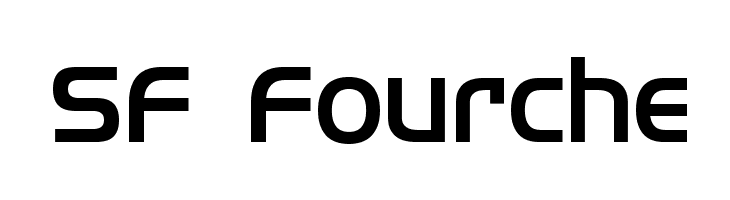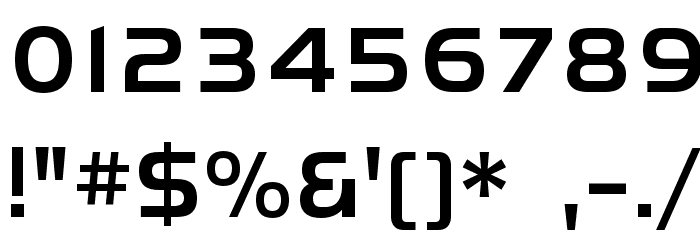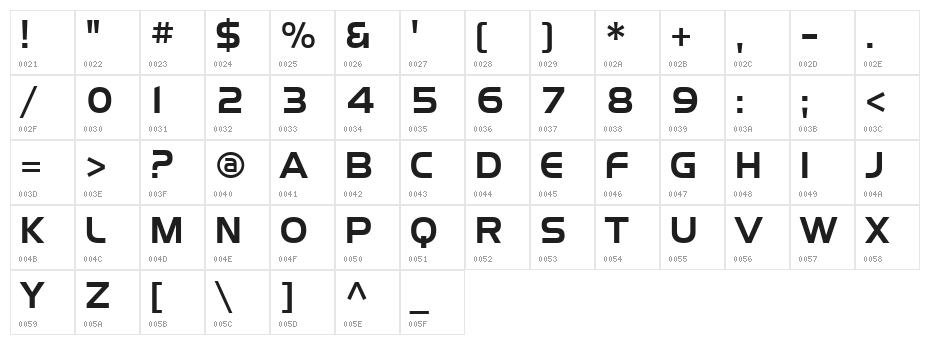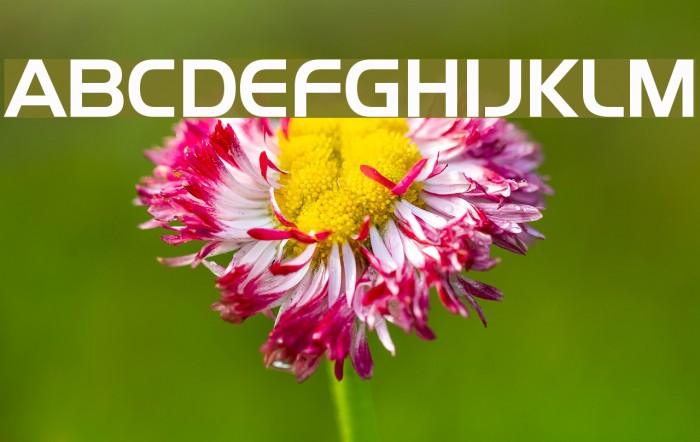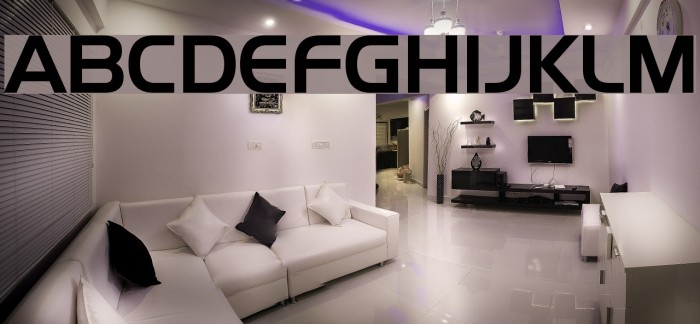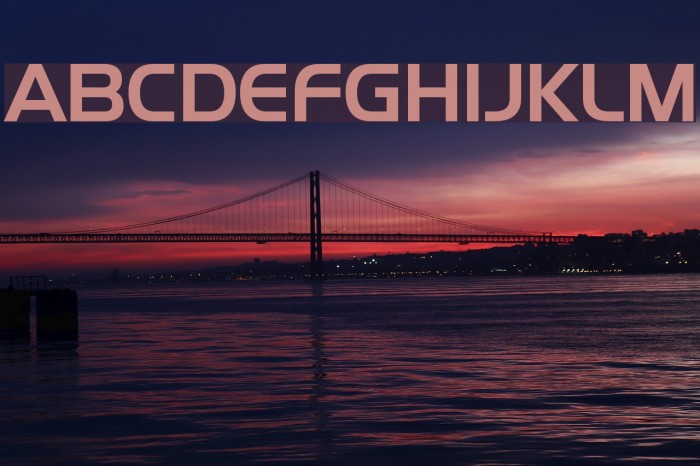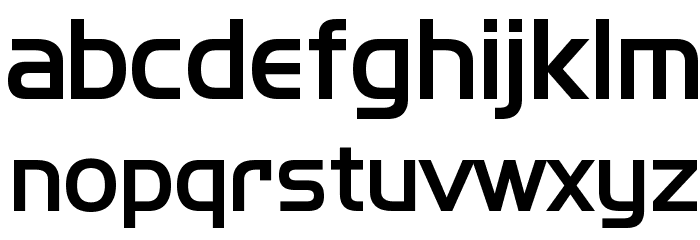
SF Fourche Font
SF Fourche Description
This font features a modern and geometric design with clean lines and a structured appearance. The characters are well-balanced, offering a uniform look that is both professional and approachable. The uppercase letters are bold and assertive, while the lowercase letters maintain a consistent style that complements the overall design. The numerals are clear and easily readable, making them suitable for various applications. Special characters are included, enhancing the font's versatility. The font's design is suitable for digital and print media, providing a contemporary feel that is ideal for branding and advertising.